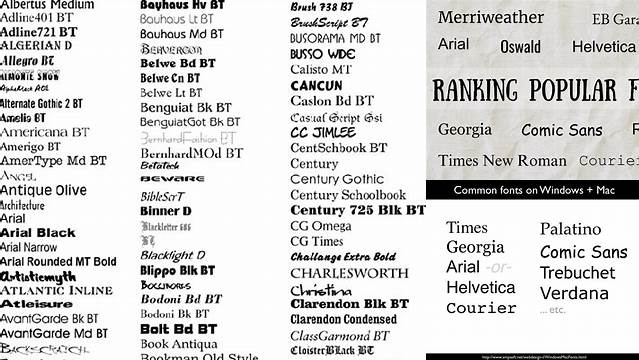
Most Common Windows Fonts: Your Essential Guide
Are you curious about the most common Windows fonts? Well, buckle up, because we're about to dive deep into the world of typography! Windows, being the behemoth operating system it is, comes packed with a ton of fonts. But let's be real, some are used way more than others. This guide is your one-stop shop to understanding the fonts that frequently grace your screens, from the documents you create to the websites you browse. Knowing these fonts isn't just about aesthetics; it's about communication, readability, and even a little bit of design savvy. So, whether you're a seasoned designer, a casual user, or just someone who appreciates a good font, this article will give you the lowdown on the most popular and widely used fonts in the Windows ecosystem.
Let's face it, we interact with fonts every single day. They shape how we perceive information, influence our mood, and even impact the overall user experience. When you're choosing a font, you're essentially choosing a voice for your message. Think about a formal business letter versus a fun, playful invitation β the fonts you'd use for each would be worlds apart. That's the power of typography! Windows, with its vast collection of fonts, offers a diverse range of choices. But understanding which fonts are the most common will help you navigate this world more effectively. You'll be able to create documents that look professional, design presentations that grab attention, and even choose fonts for your own personal projects with confidence. We'll cover the usual suspects like Arial, Times New Roman, and Calibri, as well as some other gems that are often overlooked. Get ready to boost your font knowledge!
We'll explore the history of these fonts, their intended uses, and why they continue to be so popular. You will also find tips on how to identify fonts you see in everyday use, which can be helpful if you want to match a specific font in a project. This guide is not just about listing fonts; it's about empowering you with the knowledge to make informed decisions about typography, so you can make your content look amazing. So, are you ready to become a font aficionado? Let's get started!
The Big Three: Arial, Times New Roman, and Calibri
Alright, let's get the big guns out of the way first, shall we? Arial, Times New Roman, and Calibri are the undisputed champions of Windows fonts. They're like the font equivalent of the Beatles: incredibly popular, widely recognized, and you've probably seen them everywhere. Understanding these three is crucial, so let's break them down:
Arial: This sans-serif font is known for its clean, straightforward appearance. It's a workhorse font that's great for body text, headlines, and anything that needs to be easily readable. Arial is a versatile font that works well in a variety of contexts, from business documents to website content. Its simple design makes it easy on the eyes, and itβs available in various weights and styles, so you can use it for a variety of purposes. It's often considered a default font, and that's precisely why it's so popular. You can use it for all kinds of content, with little to no visual disruption. Arial is a great option when you want your text to take center stage. Originally designed as a Helvetica alternative, Arial has its own subtle differences and a slightly warmer feel.
Consider using Arial for:
- General body text in documents and websites.
- Headlines and subheadings.
- Presentations, as it's easily readable on screens.
- Any situation where clarity and readability are paramount.
Times New Roman: A classic serif font, Times New Roman has a long and storied history. Designed for readability in newspapers, it has a traditional, elegant feel. The serifs (the small strokes at the ends of the letters) help guide the eye across the page, making it great for large blocks of text. While its roots are in print, Times New Roman is still widely used in digital documents. When you are dealing with official documents, you can't go wrong using this one. Times New Roman is like a well-tailored suit β it's always appropriate. If you are creating content for print, especially long-form documents, Times New Roman will almost certainly be a good option.
You should use Times New Roman for:
- Long-form documents like reports and essays.
- Print materials where readability is essential.
- Formal correspondence.
- Any project where you want to convey a sense of tradition and authority.
Calibri: Calibri is the default sans-serif font in Microsoft Office and has become incredibly popular as a result. It's a modern font with a clean, friendly appearance. Calibri is very legible on screens, making it a great choice for digital documents and presentations. It replaced Arial as the default font in Microsoft Office, and it is one of the most popular fonts used today. It's slightly more rounded and softer than Arial, which gives it a more approachable feel. It's designed for screen readability and is a perfect choice for modern projects. If you're using Microsoft Office, Calibri is the go-to font. It's designed for screen readability and has a clean, modern aesthetic.
Consider using Calibri for:
- Documents created in Microsoft Office.
- Presentations that need to be easily readable on screens.
- Emails and other digital communication.
- Projects where you want a modern, clean look.
Other Essential Fonts in the Windows Arsenal
While Arial, Times New Roman, and Calibri are the most common, Windows offers a plethora of other fonts that are worth knowing. These fonts play a crucial role in different contexts, and understanding their unique characteristics can significantly enhance your design projects. Let's dive into some of these essential fonts:
Consolas: This monospaced font is a favorite among programmers and developers. Each character in Consolas has the same width, which makes it easier to read code. It is especially useful when viewing or writing code because the monospace design lets you easily align text and compare lines of code side by side. If you are working with code or any form of text where alignment is important, Consolas is your font of choice. If you're a developer or spend a lot of time looking at code, Consolas is your best friend. It makes it easier to read and debug code because all characters have the same width. This is a crucial element for readability in programming environments.
Use Consolas for:
- Coding and programming environments.
- Text editors where alignment is important.
- Displaying code snippets.
Verdana: Designed for on-screen readability, Verdana is another sans-serif font with a slightly larger x-height (the height of the lowercase letters). This makes it very easy to read on screens, even at smaller sizes. Verdana is designed with readability in mind, making it an excellent choice for website content and user interfaces. Its wider letterforms and generous spacing make it perfect for both print and digital applications. When you need to ensure your text is legible, especially on screens, Verdana is a solid choice. It's a great font for websites and user interfaces, especially for those who use high-resolution displays.
Use Verdana for:
- Website content.
- User interfaces.
- Any situation where on-screen readability is a priority.
Georgia: A serif font, Georgia is designed for readability on screens. It has a larger x-height and thicker strokes than Times New Roman, making it easier to read at smaller sizes. It's an excellent option for online reading experiences. It's designed for screen readability, so it's a great choice for websites and digital documents. Georgia offers an excellent balance between elegance and readability. It is a serif font with a slightly larger x-height, making it extremely readable, particularly at smaller sizes. With this font, you can provide a sense of elegance and readability on the screen. It's designed specifically for screen readability, which makes it a great choice for website content and digital documents.
Use Georgia for:
- Website body text.
- Online articles and blog posts.
- Any situation where on-screen readability is crucial.
Helvetica: Helvetica is a classic sans-serif font that's known for its clean and neutral appearance. While not included by default in Windows, it is often available and is a staple in design circles. Helvetica is a versatile font that's great for a wide range of uses, from logos and branding to body text. This sans-serif font is known for its neutrality and versatility. This font is a favorite among designers, because it's clean and easy to read. It is also famous for its use in branding and signage, and its timeless quality makes it a staple. It has been used in various branding projects, including logos, and it conveys a sense of professionalism and clarity. Its simple, clean design ensures that your message is the focus, without any visual distractions. It's incredibly versatile and can be used for almost any design project.
Use Helvetica for:
- Logos and branding.
- Headlines and subheadings.
- Any project where you want a clean and modern look.
How to Identify Windows Fonts in Everyday Use
Ever wondered what font a website or document uses? Identifying fonts can be a handy skill. Here are a few tips to help you identify the fonts you encounter in your daily life:
- Inspect Element (Websites): If you're browsing a website, right-click on the text and select